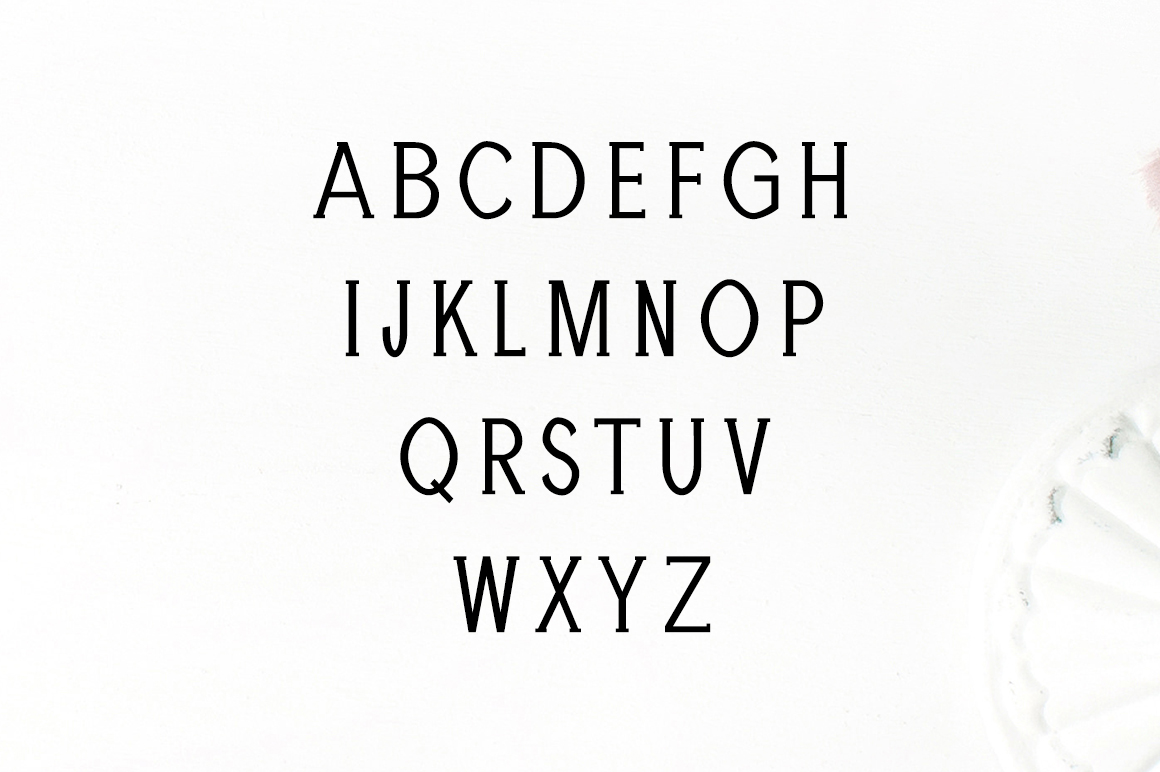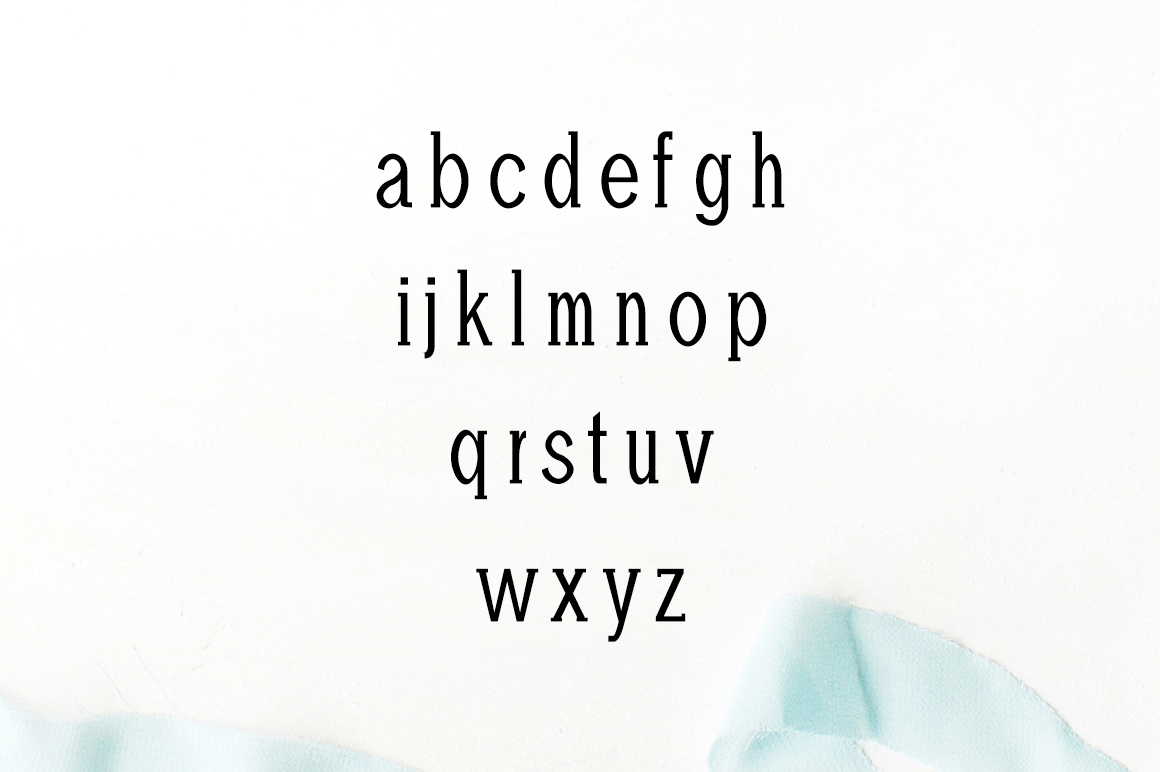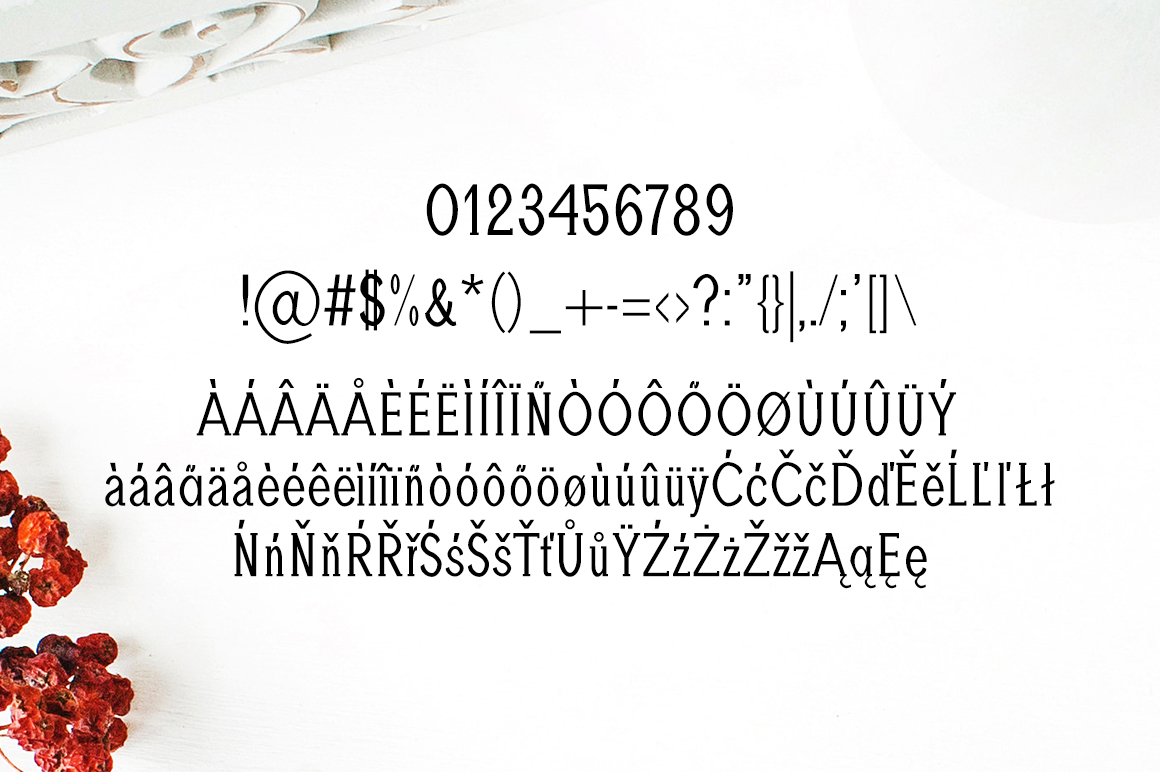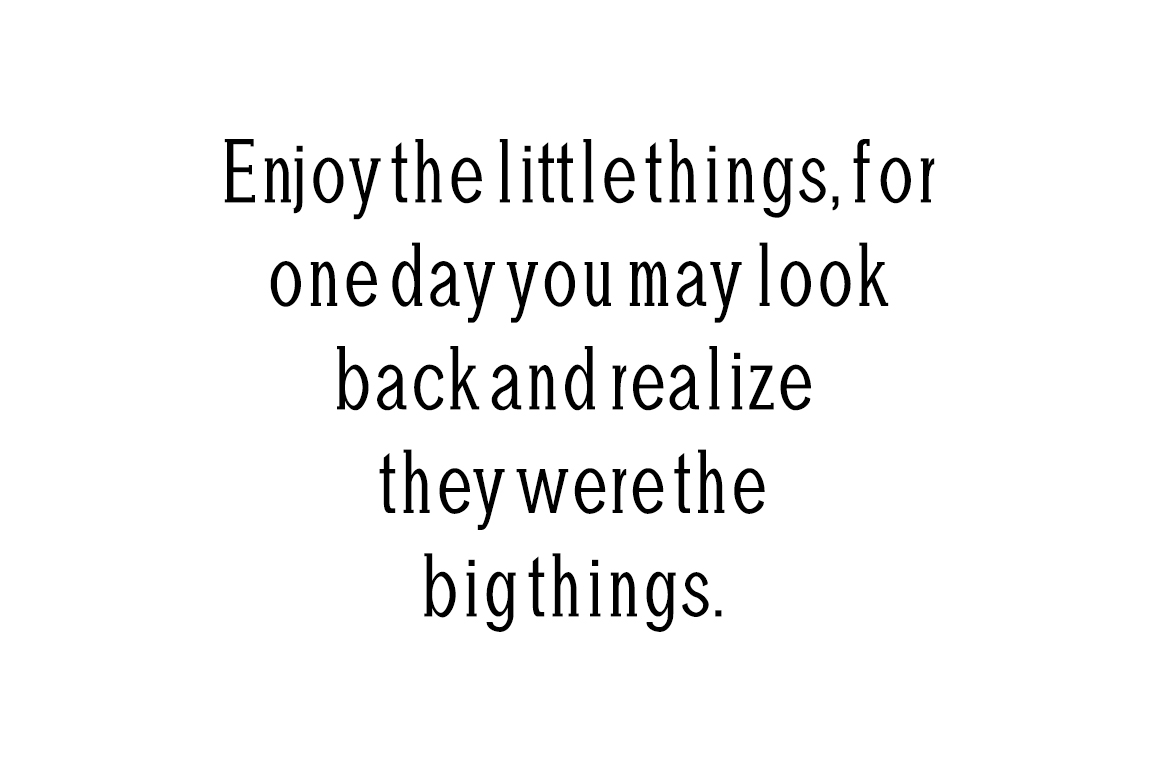
Introducing Adney Font: A Unique Slab Serif Typeface for Creative Displays
Are you tired of using the same old fonts for your designs? Look no further! Adney Font is a stunning slab serif typeface that is sure to elevate your creative projects. With its unique blend of modern and classic elements, Adney Font is perfect for designers and crafters looking to add a touch of style to their work.
What is Adney Font?
Adney Font is a set of three weights – Regular, Light, and Bold – that can be used to create a wide range of creative displays. This lovely and unique slab serif font is designed to make each word look completely stylish, making it perfect for modern and clean designs, logos, headlines, banners, and templates.
Key Features of Adney Font
- Three Weights: Adney Font comes in three weights – Regular, Light, and Bold – giving you the flexibility to choose the perfect weight for your design.
- Multilingual Support: Adney Font features uppercase and lowercase multilingual letters, allowing you to create designs that cater to a global audience.
- Numbers and Punctuation: Adney Font includes numbers and punctuation marks, making it a comprehensive font that can be used for a wide range of design projects.
- Alternative Characters: Adney Font also features alternative characters, giving you even more flexibility and creative control.
How to Use Adney Font
Adney Font is incredibly versatile and can be used for a wide range of design projects. Here are a few ideas to get you started:
- Logos: Use Adney Font to create a unique and stylish logo for your business or brand.
- Headlines: Adney Font is perfect for creating eye-catching headlines for your website, blog, or social media channels.
- Banners: Use Adney Font to create stunning banners for your website or social media channels.
- Templates: Adney Font is a great choice for creating templates for your designs, giving you a consistent and professional look.
Tips for Using Adney Font
Here are a few tips for getting the most out of Adney Font:
- Use it in all caps: Adney Font looks gorgeous in all caps with a wide-set spacing, making it perfect for creating a classy and sophisticated look.
- Mix and match: Experiment with different weights and combinations of Adney Font to create a unique and eye-catching design.
- Pair it with other fonts: Adney Font can be paired with other fonts to create a contrasting and visually appealing design.
Adney Font is a unique and stylish slab serif typeface that is perfect for designers and crafters looking to elevate their creative projects. With its three weights, multi-format support, and multilingual features, Adney Font is a versatile font that can be used for a wide range of design projects. Whether you’re creating a logo, headline, banner, or template, Adney Font is sure to make your design stand out.